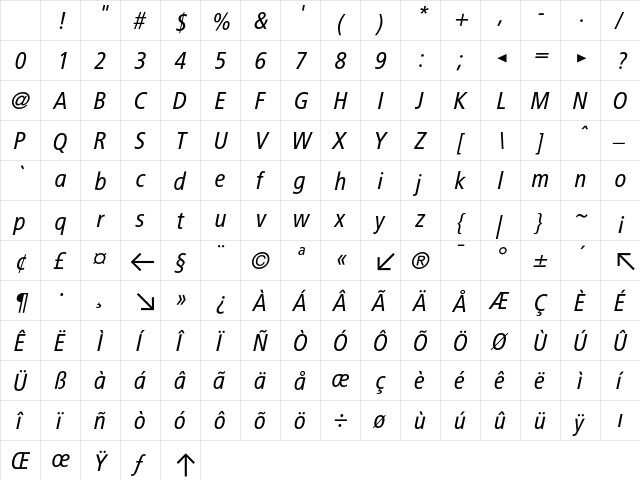
BVGNormalKursiv is a composed and adaptable typeface that performs quietly and consistently across a wide range of design contexts. The slanted form adds forward momentum and visual energy.